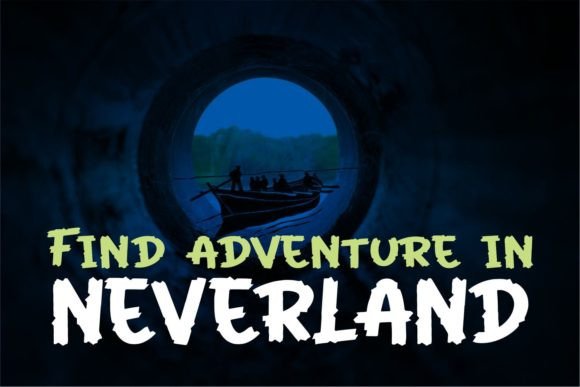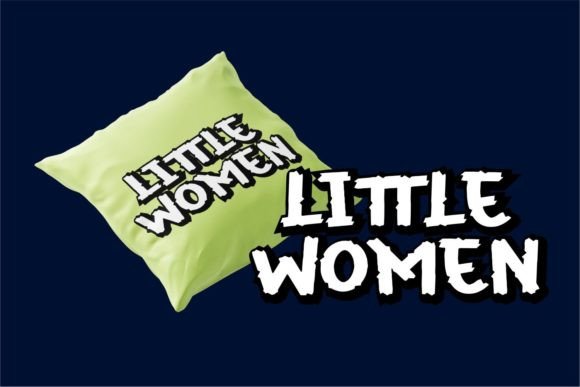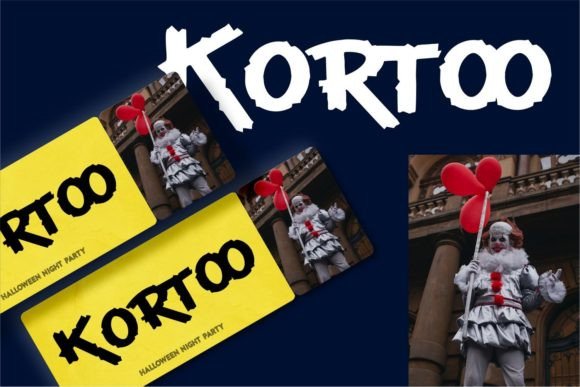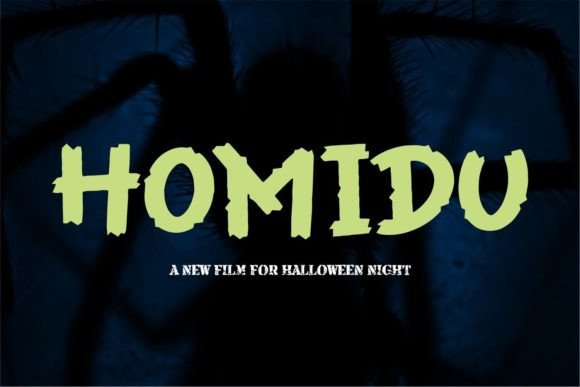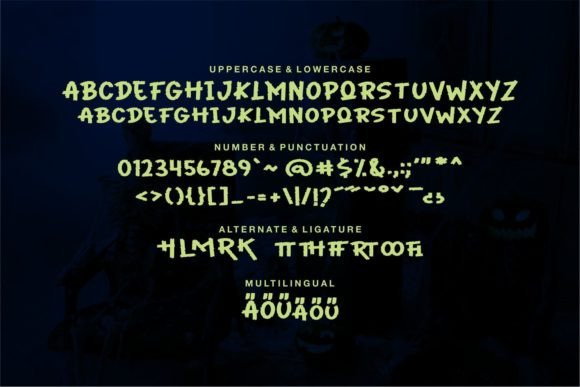
Introduction to Komar Font
Komar is a bold display font with a modern cartoonish style.
It will look so beautiful on invitations like greeting cards, branding materials, business cards, quotes, posters, and more .
Key Features of Komar Font